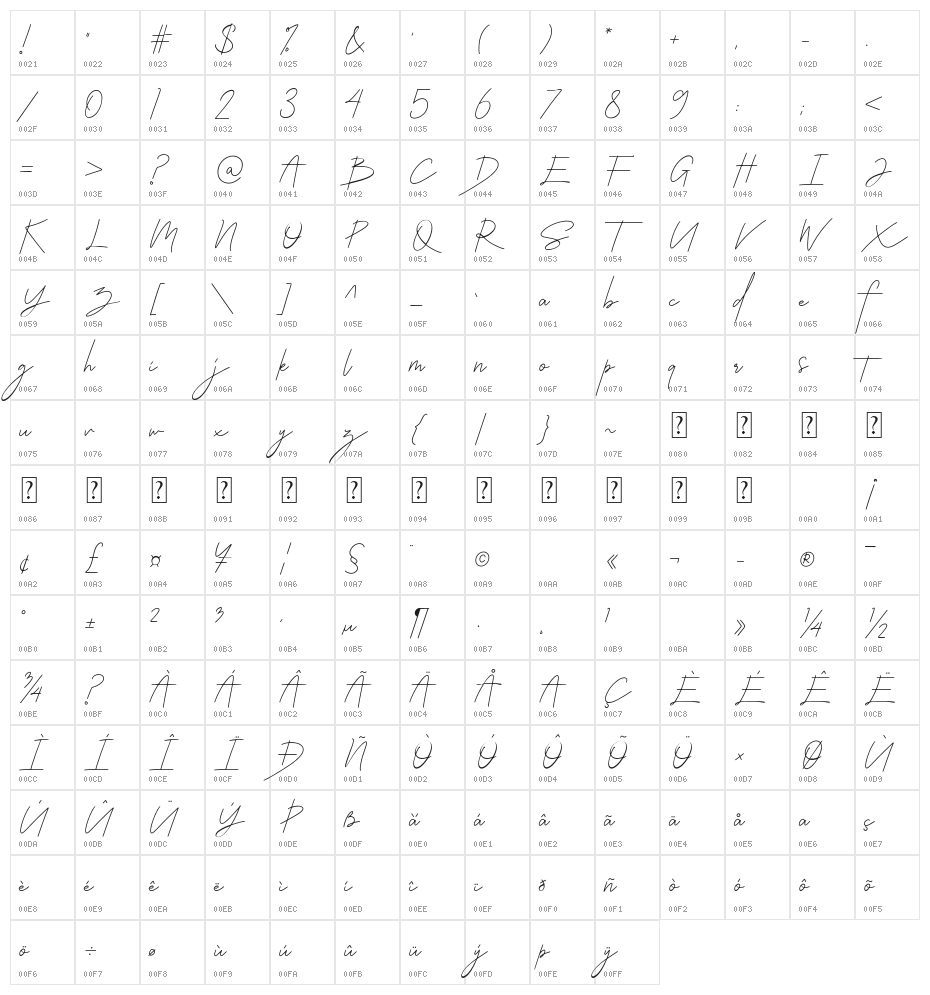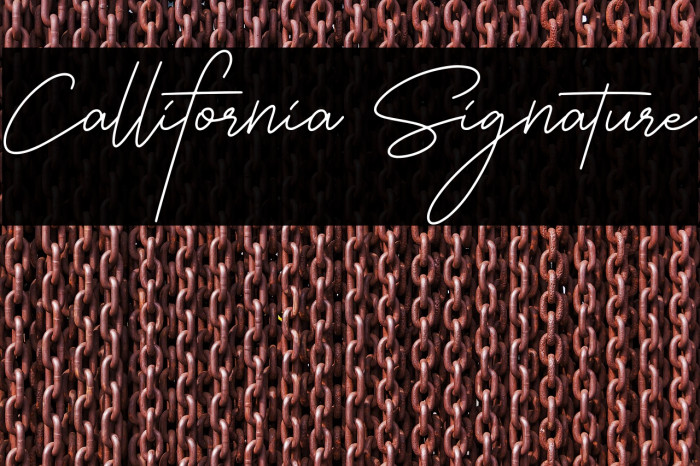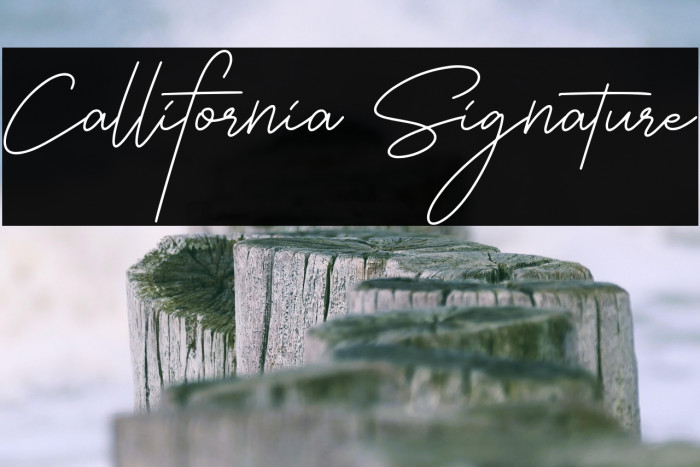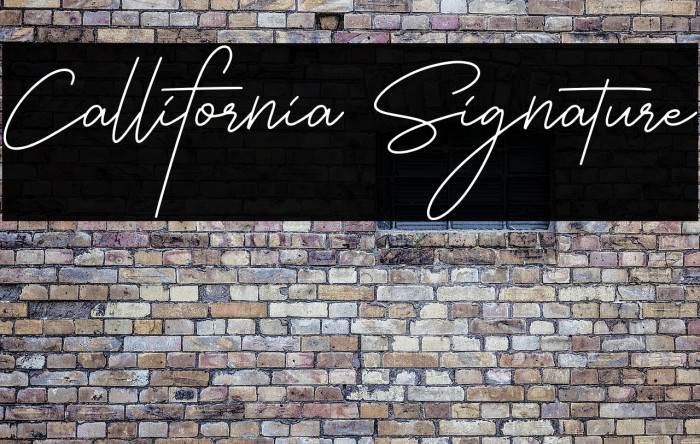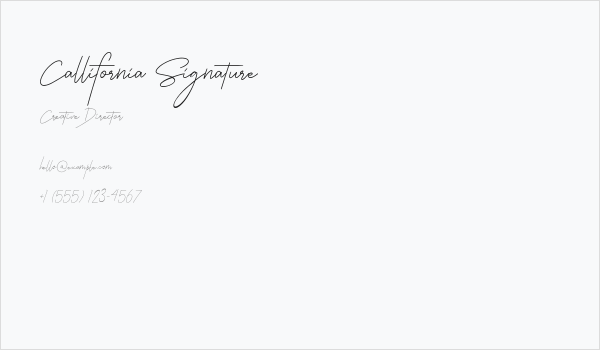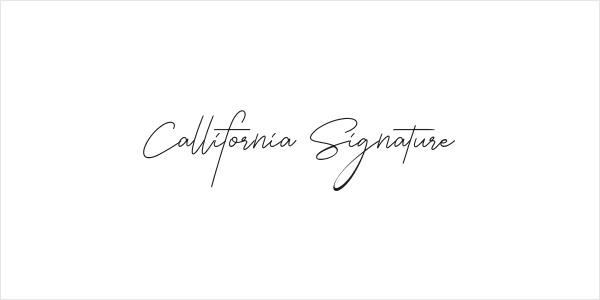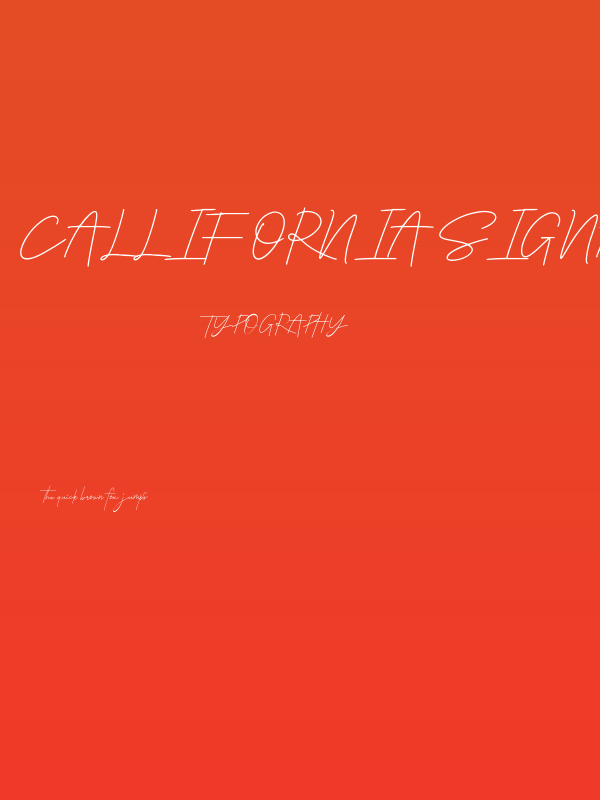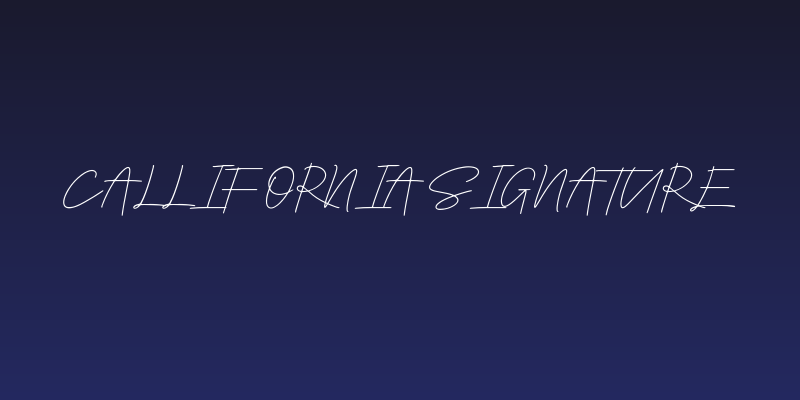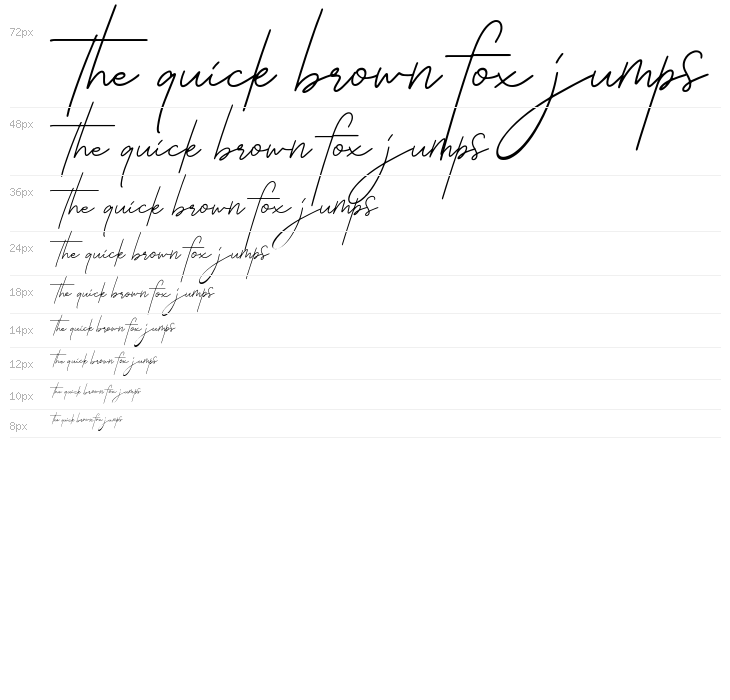
Callifornia Signature Font
Callifornia Signature Description
This font exudes a sophisticated and elegant handwritten style, characterized by its fluid and cursive strokes. The letters are connected seamlessly, giving it a natural and organic flow reminiscent of a personal signature. The uppercase letters maintain a consistent height, while the lowercase letters exhibit a slight variation in size, adding to the font's charm. The numerals and special characters are crafted with the same attention to detail, ensuring uniformity across all glyphs. This font is perfect for adding a personal touch to any design, making it ideal for invitations, branding, and other creative projects.
| Overall Style | Elegant, Personal, Organic |
| Proposed Projects | Ideal for wedding invitations, personal branding, logos, and greeting cards. |